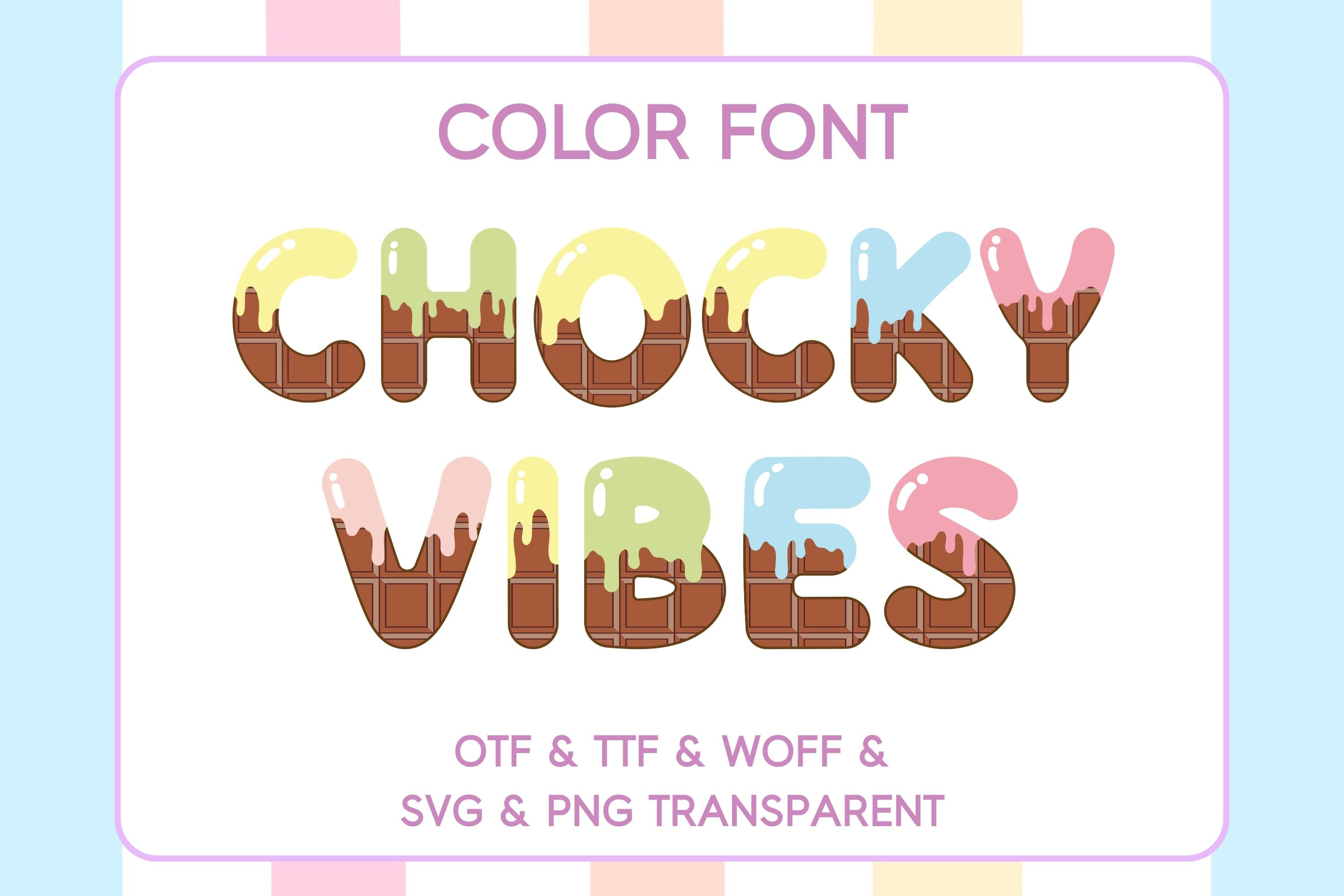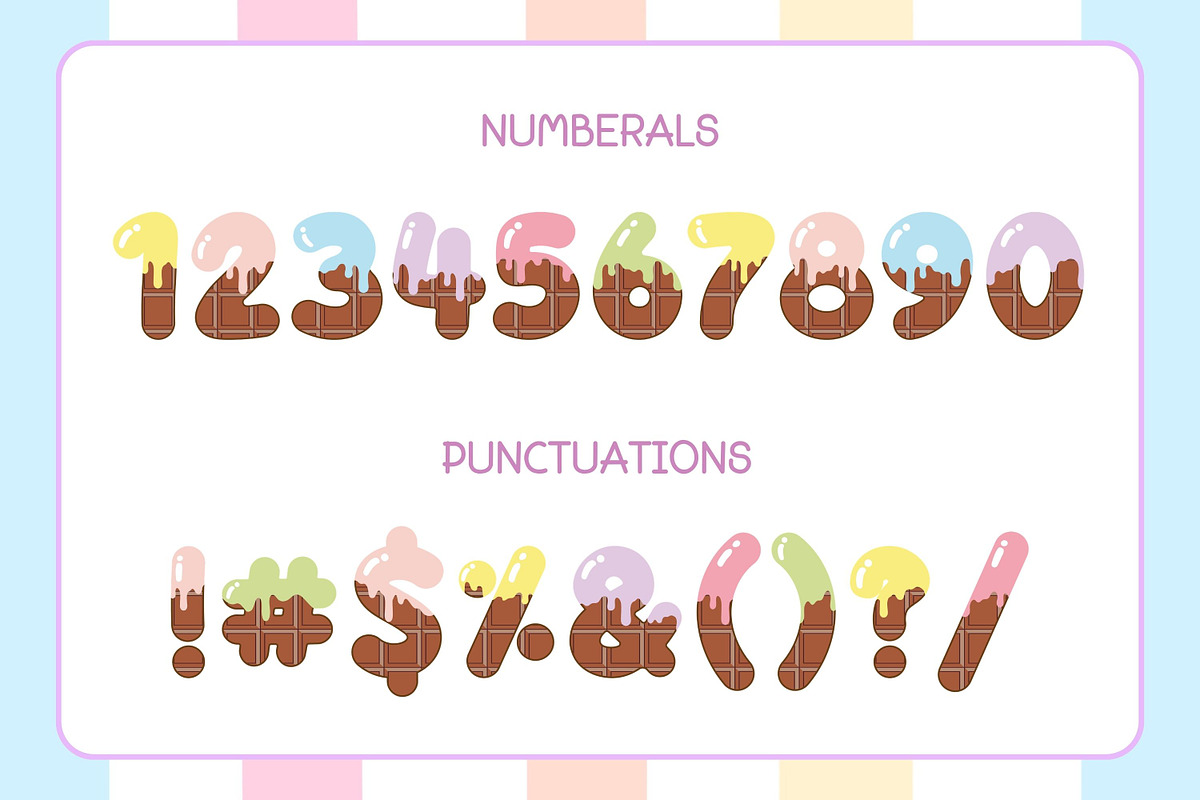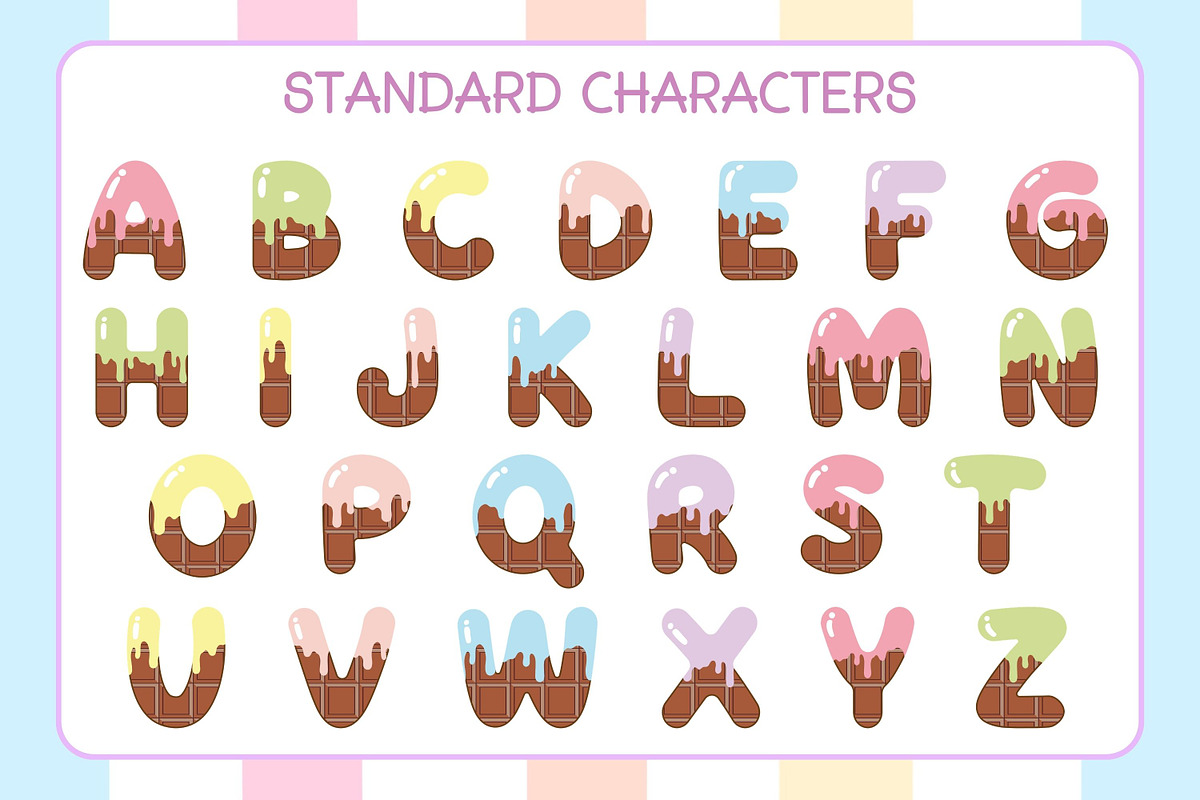
Chocky Vibes - Color Font
Chocky Vibes is a fun and delicious color font inspired by melted chocolate and colorful candy icing. Each chunky letter features rich chocolate bar textures topped with glossy pastel drips, creating a playful and sweet look that's perfect for dessert-themed designs. Ideal for party invitations, candy packaging, bakery branding, stickers, sublimation, t-shirts, and children's projects, this font adds a delightful treat to every creation.